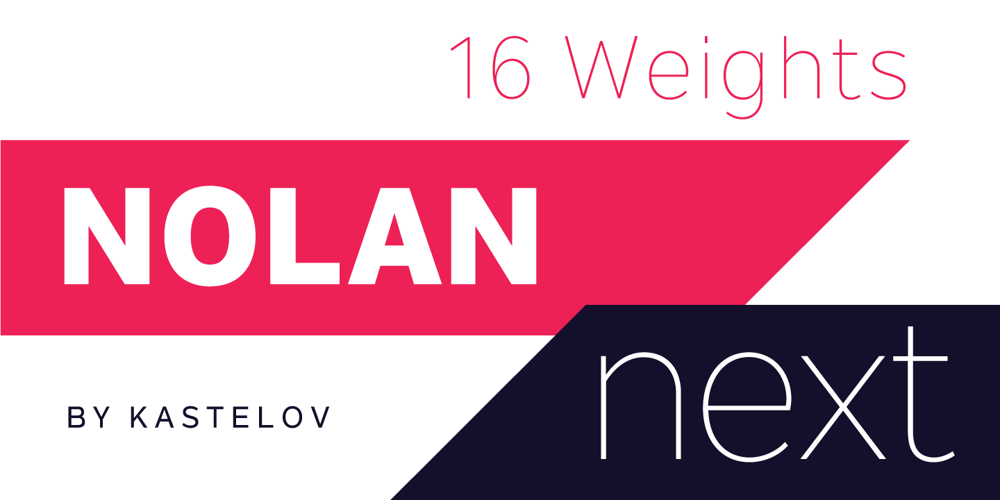
Nolan Next Font Family was designed by Galin Kastelov and published by Monotype. Nolan Next contains 16 styles and family package options. Nolan Next is a low-contrast humanist sans-serif with a large x-height and streamlined appearance. It is based on Nolan, but with a more compact letterforms and remastered curves. Designed to appeal to a broader audience due to its narrower width and subtle presence, Nolan Next is ideal for everyday usage. It is well suited for design applications ranging from branding and corporate identity to editorial and web design. Comprising of eight weights with matching italics, Nolan Next is easy to work with and accommodating to your needs. Designed to work as a universal typeface, it also stands its ground in headlines, presentation materials, logotypes, etc. Additionally, the typeface includes an extended character set supporting an array of languages.